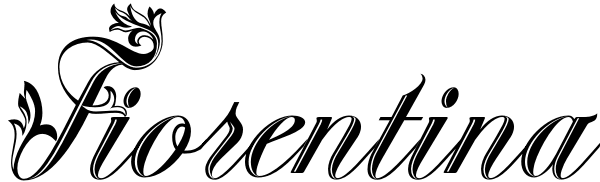
Fiorentina
Fiorentina is a ecstatic, abundant, embellished script in the Renaissance tradition. It could have been made for the Medicis or Sforzas. But I designed it completely new after being inspired by colorful Florentine wrapping papers. I gave it many...